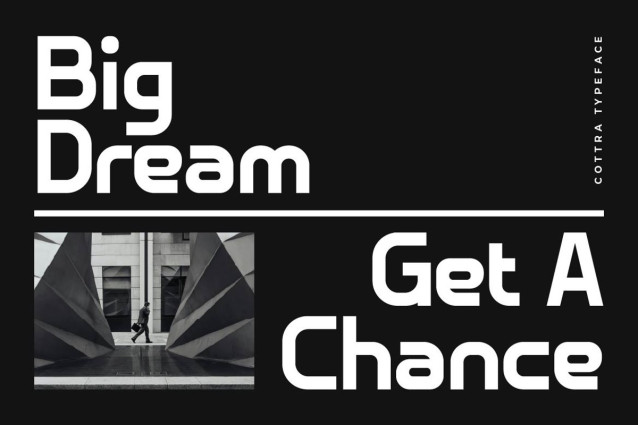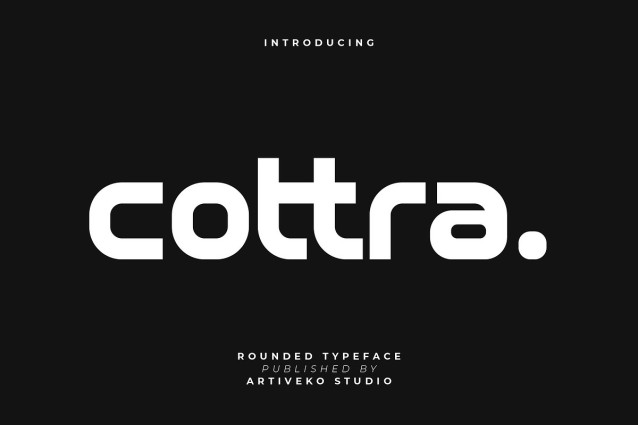
Cottra Font
Cottra Font is a fresh and expressive sans serif font designed for creators who want a clean, stylish, and contemporary look. With its balanced proportions, subtle geometric influence, and slightly playful details, Cottra brings a modern creative energy to branding, packaging, social media, posters, editorials, and digital interfaces.
This fonts are great for product logo,wedding card logo, clothing brand logo, Vintage design and much more.